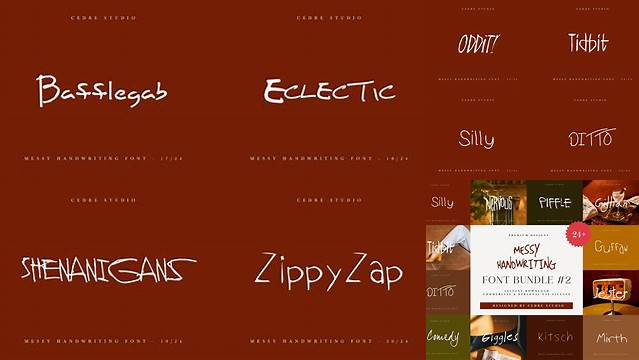
Messy Fonts: Unleash Creativity With Unique Typefaces
Are you a fan of fonts that exude character and personality? Do you find yourself drawn to the unique charm of messy fonts? If so, you've come to the right place! In this article, we'll dive deep into the world of messy fonts, exploring what makes them so appealing, how to use them effectively, and where to find some truly captivating options. So, buckle up, guys, and let's get ready to embrace the beautiful chaos of messy fonts!
What are Messy Fonts?
Let's start with the basics: What exactly are messy fonts? Well, the term itself gives you a pretty good idea. Unlike their sleek and polished counterparts, messy fonts are characterized by their irregularity, imperfections, and hand-drawn feel. Think of fonts that resemble handwriting, brushstrokes, or even splatters of ink. These fonts often feature uneven lines, varying stroke widths, and a generally whimsical or chaotic appearance. This is not your standard, clean-cut typeface; instead, messy fonts embrace the beauty of imperfection, offering a more organic and human touch to your designs. They can evoke feelings of playfulness, nostalgia, and authenticity, making them a fantastic choice for projects that need a bit of personality and flair. The beauty of messy fonts lies in their ability to stand out and grab attention, offering a distinct visual experience that sets them apart from the crowd. They can add a touch of rebelliousness, a hint of artistry, and a whole lot of character to any design project, whether it's a website, a poster, or even a logo. The versatility of messy fonts is also worth noting, as they come in a wide range of styles, from elegant and flowing scripts to bold and grungy display fonts. This variety allows you to choose the perfect messy font to match the specific mood and tone you're trying to convey. So, whether you're aiming for a playful and lighthearted vibe or a more edgy and unconventional feel, there's a messy font out there that can help you achieve your vision.
Why Use Messy Fonts?
Now that we know what messy fonts are, let's talk about why you might want to use them. The truth is, there are many compelling reasons to incorporate these unconventional typefaces into your design work. First and foremost, messy fonts can add a unique and personal touch to your projects. In a world saturated with clean and corporate designs, messy fonts offer a refreshing alternative that can help your work stand out from the crowd. They bring a human element to the digital realm, making your designs feel more approachable, relatable, and authentic. This is especially important if you're trying to connect with your audience on an emotional level or create a brand identity that feels genuine and down-to-earth. Messy fonts can also be incredibly effective for creating a sense of nostalgia or vintage charm. Fonts that mimic handwriting or brushstrokes can evoke memories of old posters, handwritten letters, and classic designs. This can be a powerful tool for brands that want to tap into a sense of history or create a timeless aesthetic. Furthermore, messy fonts are perfect for projects that demand attention and make a statement. Their irregular and eye-catching nature makes them ideal for headlines, posters, and other design elements that need to grab the viewer's eye. They can add a sense of energy and excitement to your work, making it more memorable and impactful. The versatility of messy fonts is another key reason to consider using them. They can be adapted to a wide range of design styles and applications, from playful and whimsical designs to more edgy and rebellious ones. Whether you're working on a children's book, a music poster, or a website for a creative agency, there's likely a messy font that can perfectly complement your vision. Ultimately, the decision to use a messy font comes down to the specific goals of your project and the message you want to convey. If you're looking to add personality, authenticity, and a touch of unconventional charm to your designs, then messy fonts are definitely worth exploring. They can be a powerful tool for creating visually engaging and emotionally resonant work that truly stands out.
How to Use Messy Fonts Effectively
Okay, so you're sold on the idea of using messy fonts, but how do you actually use them effectively? It's true that these fonts can be a bit more challenging to work with than your standard typefaces, but with a few tips and tricks, you can master the art of messy font design. The first and most important rule is to use messy fonts sparingly. Because they are so visually impactful, messy fonts are best used for headlines, titles, and other short bursts of text. Overusing them can quickly lead to a cluttered and overwhelming design. Think of them as a special ingredient – a little goes a long way! When it comes to body text, it's generally best to stick with more legible and traditional fonts. This will ensure that your content is easy to read and doesn't distract from the overall design. Another key consideration is the readability of your chosen messy font. While the imperfections and irregularities are part of their charm, it's crucial that your font is still legible, especially at smaller sizes. Avoid fonts that are overly stylized or have excessively thin strokes, as these can be difficult to read, particularly online. Pay close attention to the spacing and kerning of your messy font. Because they often have irregular shapes and varying letter widths, messy fonts can sometimes require more manual adjustments to ensure a balanced and visually pleasing appearance. Experiment with different spacing settings until you achieve a comfortable and readable result. Contrast is your friend when working with messy fonts. Pairing them with clean and simple fonts can create a striking visual effect that highlights the unique character of the messy font. Consider using a messy font for your headline and a more traditional sans-serif font for your body text, for example. This creates a clear hierarchy and ensures that your design is both visually engaging and easy to read. Finally, don't be afraid to experiment and have fun! Messy fonts are all about expressing personality and creativity, so let your imagination run wild. Try different combinations, play with colors and textures, and see what kind of unique and compelling designs you can create. With a little practice and a keen eye, you'll be a messy font master in no time.
Where to Find Messy Fonts
So, you're ready to dive into the world of messy fonts and start experimenting? Awesome! But where do you actually find these unique typefaces? Luckily, there are tons of resources available online, both free and paid, that offer a wide variety of messy fonts to suit your needs. Let's start with some popular online font foundries. Websites like MyFonts, Fontspring, and Creative Market are treasure troves of fonts, including a diverse selection of messy fonts. These sites allow you to browse by category, style, and even designer, making it easy to find the perfect font for your project. While many of the fonts on these sites are paid, they often offer high-quality designs and licensing options that can be a worthwhile investment for professional use. If you're on a budget, there are also plenty of excellent free font resources available. Websites like Google Fonts, DaFont, and FontSpace offer a vast collection of free fonts, including a surprising number of messy fonts. Keep in mind that free fonts often come with different licensing restrictions than paid fonts, so be sure to carefully review the terms of use before incorporating them into your projects. Another great way to discover messy fonts is to explore online design communities and marketplaces. Websites like Dribbble and Behance are filled with talented designers who often share their own fonts or recommend their favorite resources. These platforms can be a fantastic source of inspiration and help you discover hidden gems that you might not find elsewhere. When searching for messy fonts, it's helpful to use specific keywords that reflect the style you're looking for. Try searching for terms like "handwritten font," "brush script font," "grunge font," or "distressed font" to narrow down your results. You can also add adjectives like "playful," "elegant," or "bold" to further refine your search. Finally, don't forget to test out your chosen messy font in your design software before making a final decision. Download a sample of the font and experiment with different sizes, colors, and text combinations to ensure that it looks great in your project. With a little research and experimentation, you're sure to find the perfect messy font to add a touch of personality and charm to your designs.
Examples of Messy Fonts in Action
To truly appreciate the versatility and impact of messy fonts, it's helpful to see them in action. Let's take a look at some examples of how messy fonts can be used effectively in various design projects. Imagine a handcrafted coffee shop logo. A messy font resembling handwriting or brushstrokes can instantly convey a sense of authenticity and warmth, suggesting that the coffee is made with care and attention. The imperfect lines and unique character of the font can create a welcoming and approachable vibe, making customers feel like they're stepping into a cozy and inviting space. Think about a children's book cover. A playful and whimsical messy font can capture the imagination of young readers and set the tone for the story inside. Fonts that look like they've been scribbled or drawn by hand can add a sense of fun and adventure, making the book more appealing to children and their parents. Picture a music poster for an indie band. A bold and grungy messy font can perfectly capture the rebellious and edgy spirit of the music. Fonts with distressed textures or uneven lines can evoke a sense of raw energy and passion, making the poster stand out from the crowd. Consider a wedding invitation. An elegant and flowing messy script font can add a touch of romance and sophistication to the design. Fonts that resemble calligraphy or handwritten letters can create a personalized and intimate feel, making the invitation feel extra special. Envision a website for a creative agency. A unique and unconventional messy font can help the agency showcase its personality and creativity. Fonts that stand out from the ordinary can convey a sense of innovation and originality, attracting clients who are looking for something different. These are just a few examples of the many ways messy fonts can be used to enhance design projects. From logos and posters to websites and invitations, messy fonts can add a touch of personality, authenticity, and visual interest to your work. By understanding the characteristics of messy fonts and how to use them effectively, you can unlock their full potential and create truly memorable designs.
Conclusion: Embrace the Mess
So, there you have it – a deep dive into the wonderful world of messy fonts. We've explored what makes them so unique, why you might want to use them, how to use them effectively, and where to find them. The key takeaway? Don't be afraid to embrace the mess! Messy fonts offer a refreshing alternative to the clean and corporate typefaces that dominate the design landscape. They allow you to inject personality, authenticity, and a touch of unconventional charm into your projects. Whether you're looking to create a nostalgic vibe, make a bold statement, or simply add a human touch to your designs, messy fonts can be a powerful tool in your creative arsenal. Remember, the beauty of messy fonts lies in their imperfections. The uneven lines, varying stroke widths, and hand-drawn feel are what give them their character and appeal. So, don't strive for perfection – instead, embrace the chaos and let your creativity flow. Experiment with different messy fonts, pair them with contrasting typefaces, and see what kind of unique and compelling designs you can create. With a little practice and a willingness to step outside the box, you'll be amazed at the results. So go ahead, guys, give messy fonts a try! You might just discover your new favorite design element.